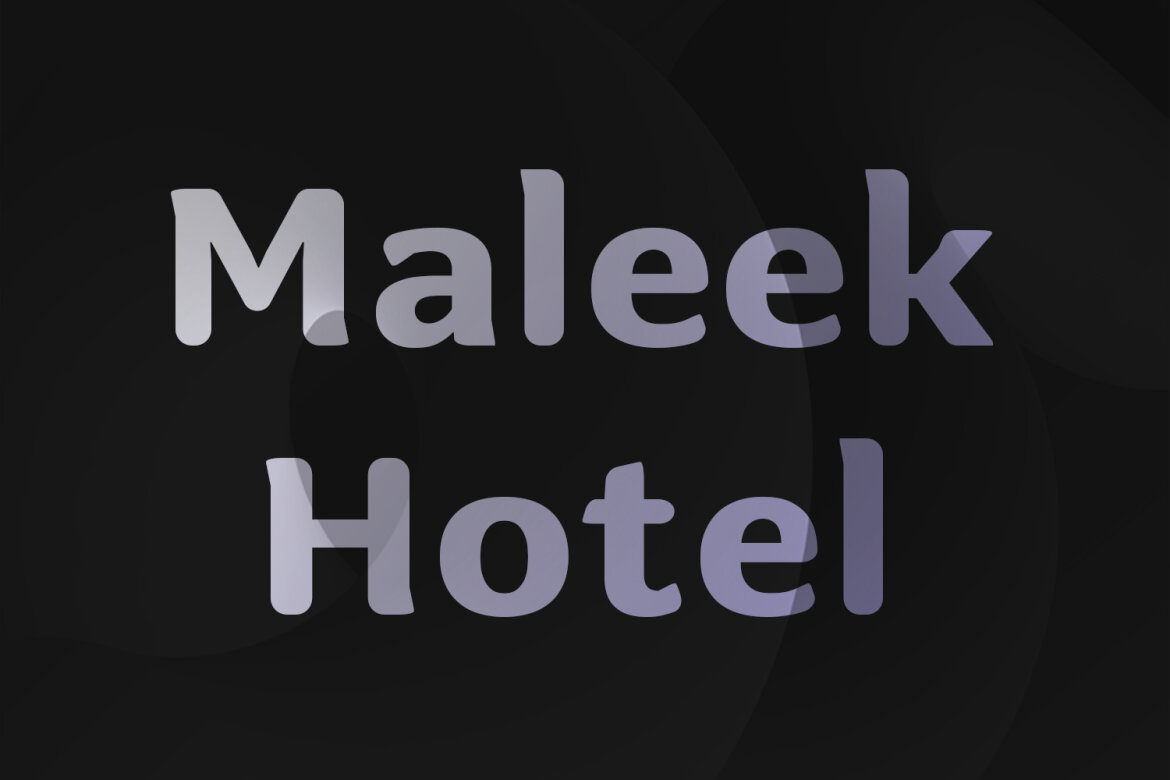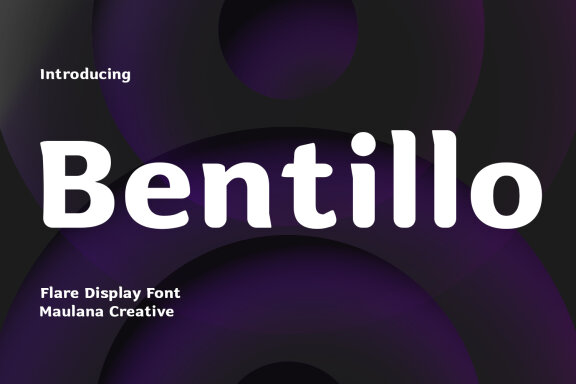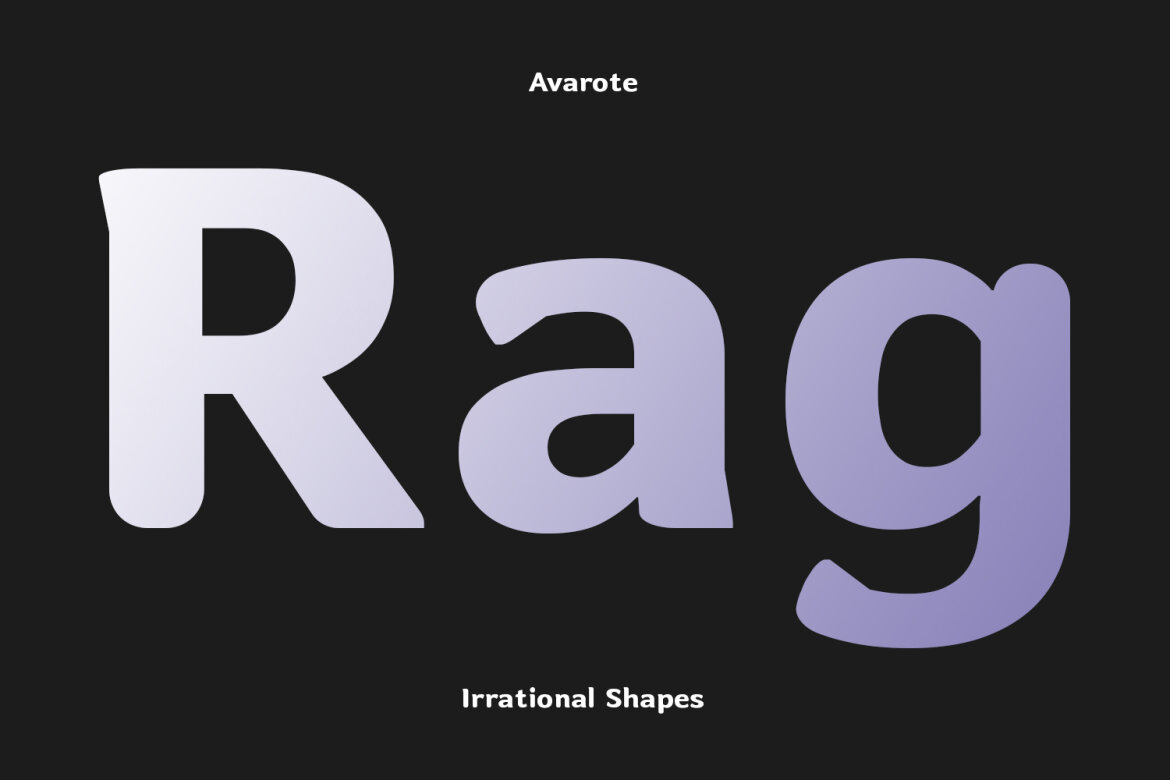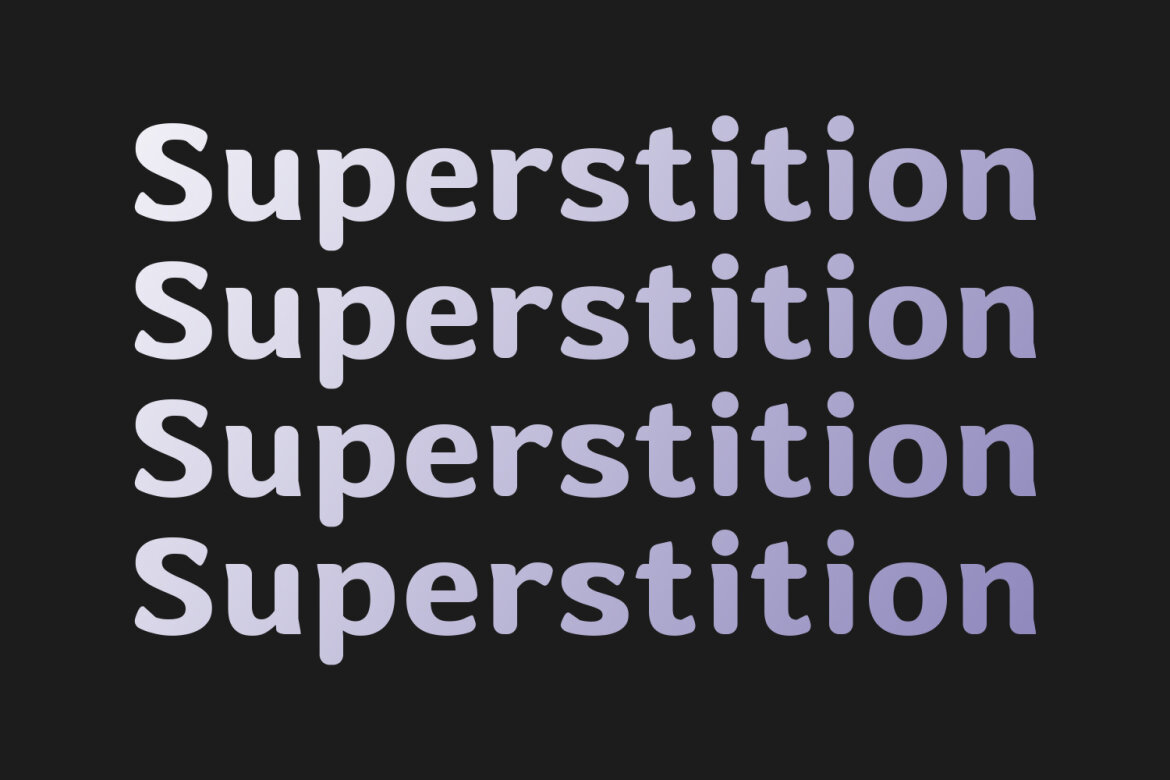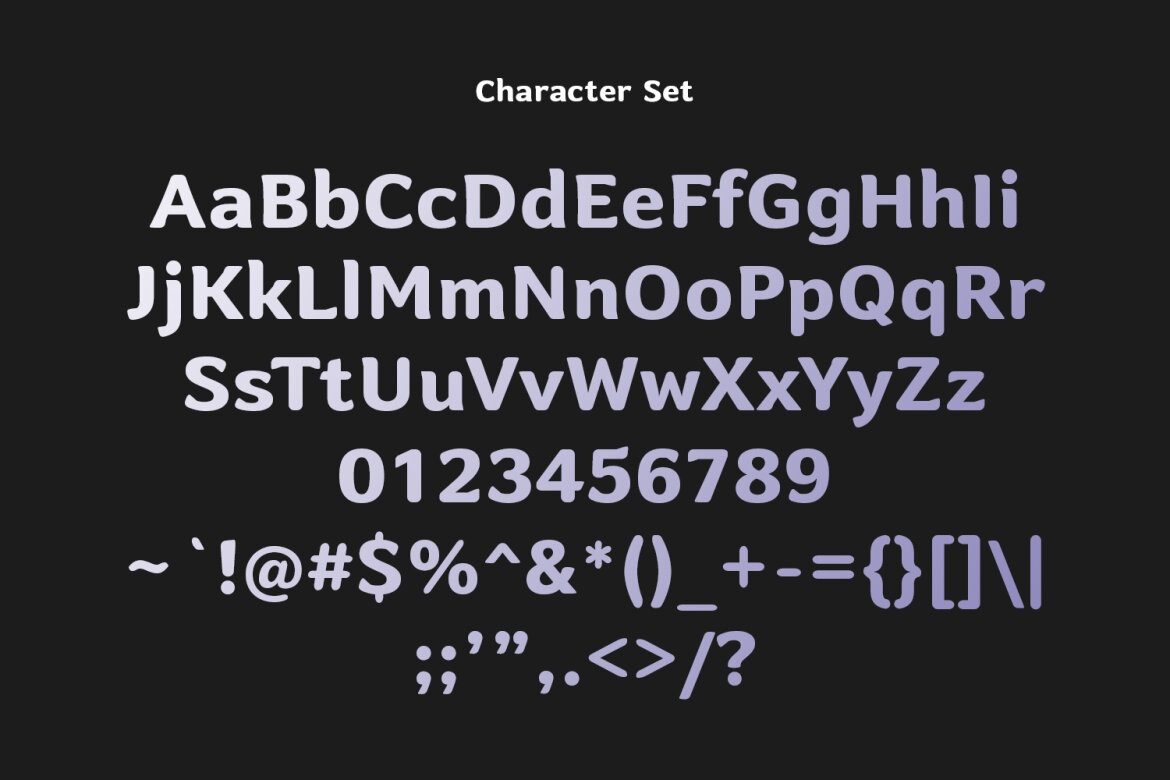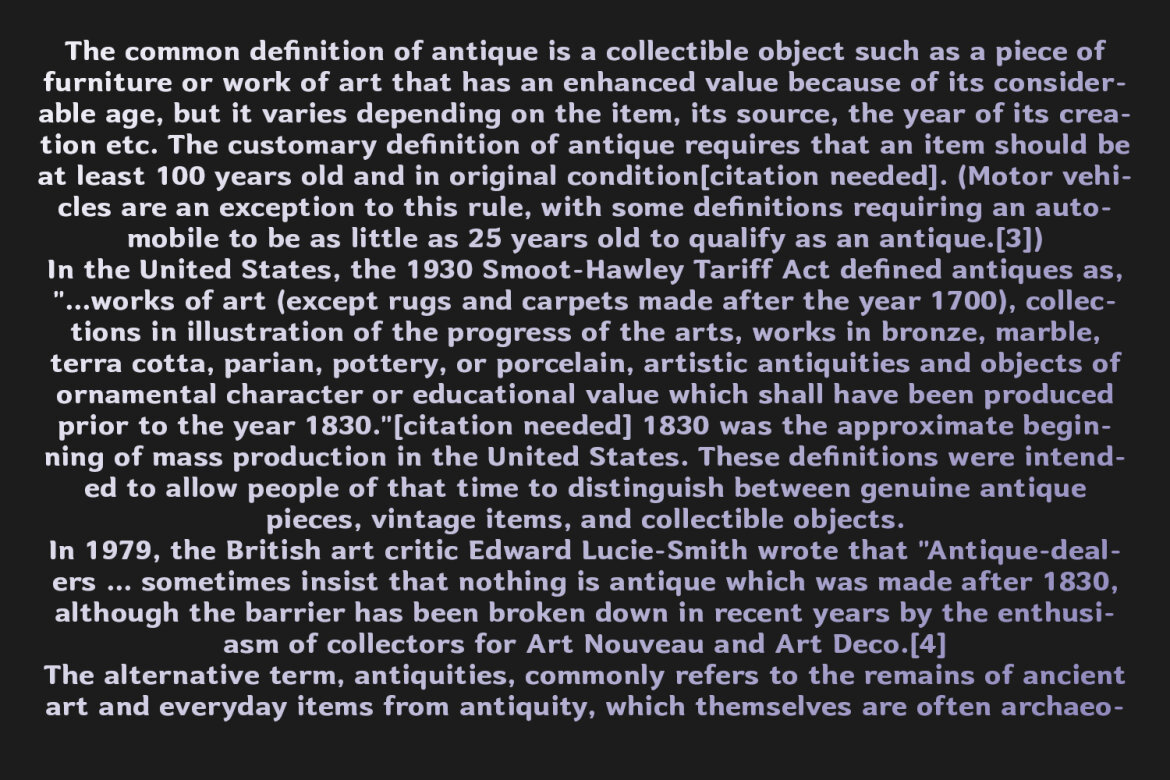
Bentillo Flare Display FREE Font
Bentillo
Bentillo is a modern Decorative flared sans serif Display font. Bold stroke, fun character with a bit of ligatures and alternates. To give you an extra creative work. Bentillo font support multilingual more than 100+ language. This font is good for logo design, Social media, Movie Titles, Books Titles, a short text even a long text letter and good for your secondary text font with script or serif. Make a stunning work with Bentillo font.